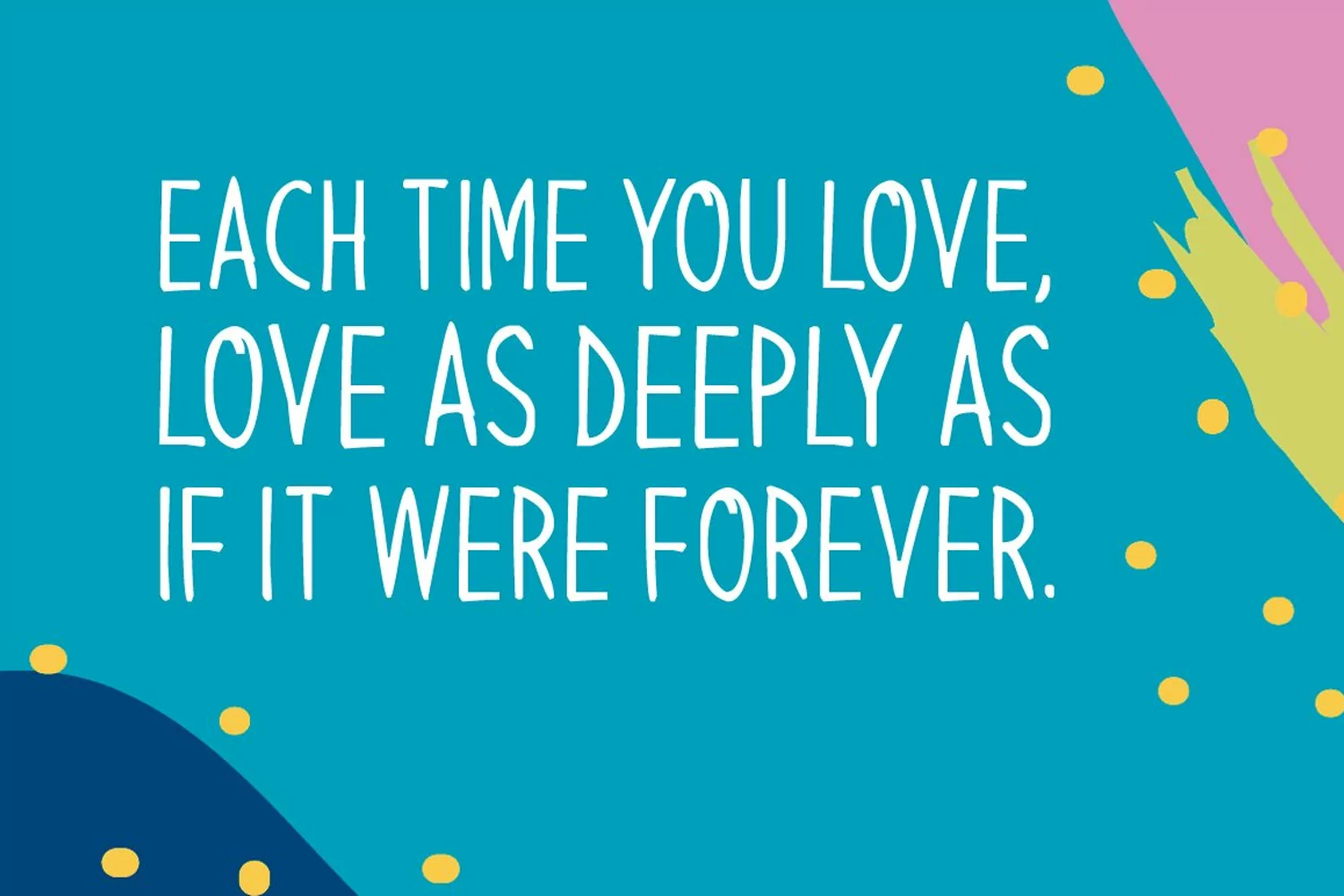
Introducing Hello Brilliant!
Hello Brilliant is a brand new handwritten font. Hello Brilliant is perfectly suited for stationery, logos, t-shirt, paper, print design, website header, photo frame, flyer, music cover, poster, image slider, and much more.